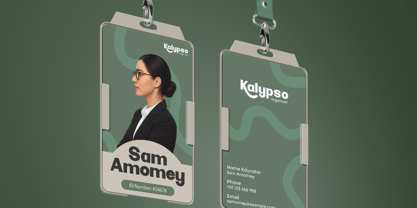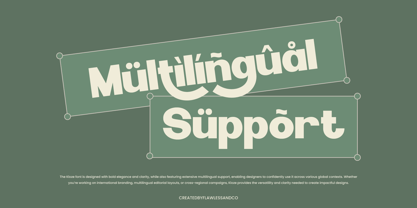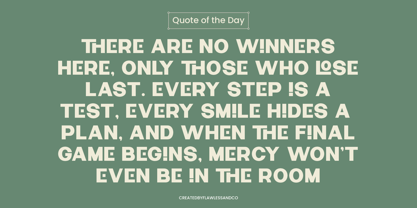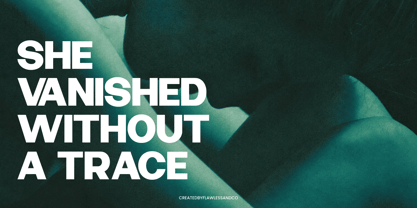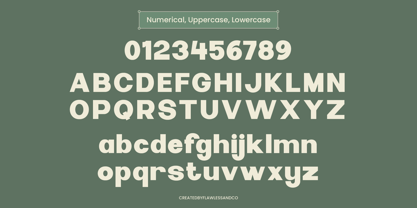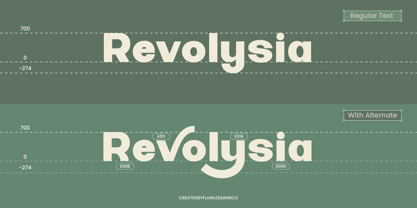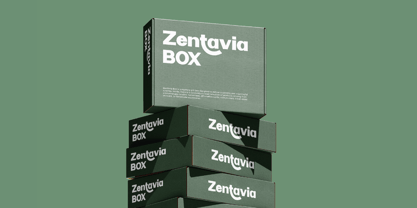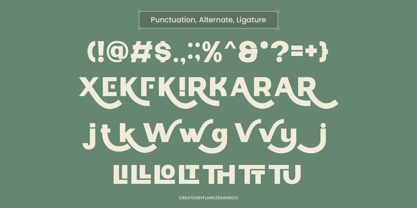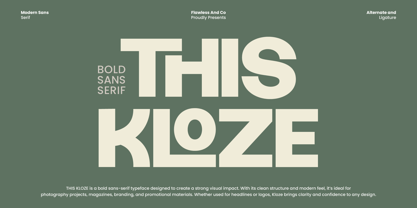
Thiskloze
von Flawlessandco
Die Schriftfamilie Thiskloze wurde von Achmad Yani entworfen und von Flawlessandco veröffentlicht. Thiskloze enthält 1 Stile. Mehr über diese Familie
THIS KLOZE is a BOLD SANS-SERIF typeface designed to deliver maximum visual impact. With its strong, geometric shapes and modern design, it’s perfect for creating attention-grabbing headlines, powerful logos, and striking brand identities.